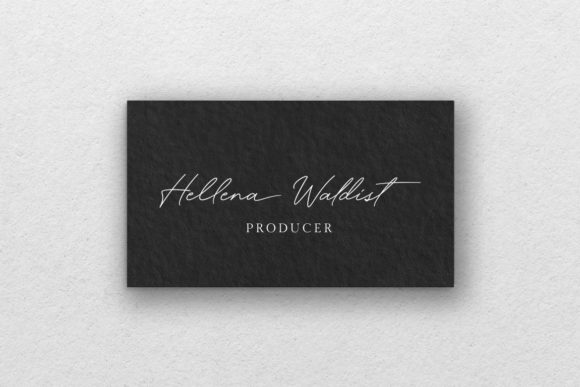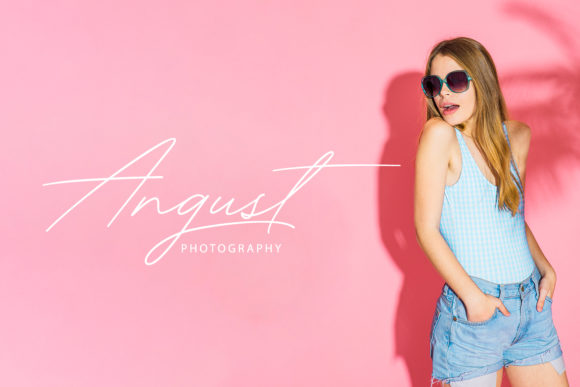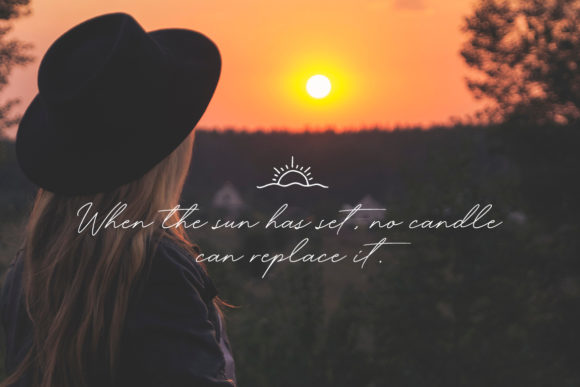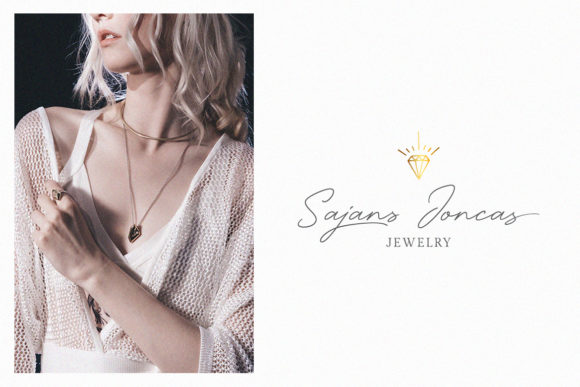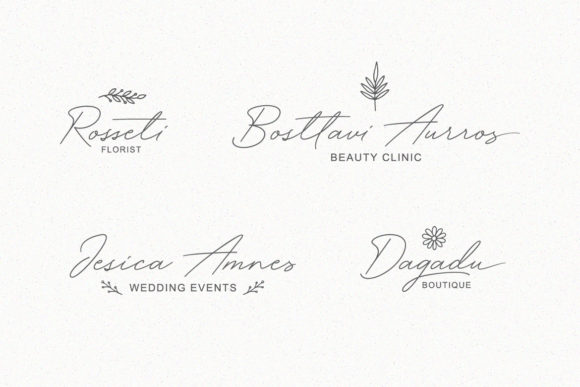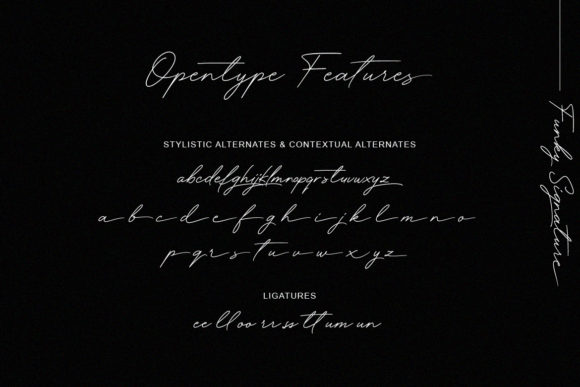
Introduction to Funky Signature Font Font
Fonts play a crucial role in design, and the Funky Signature Font font is a typeface that brings both character and versatility to any project. Whether you’re working on a branding project, a website, or a print design, the Funky Signature Font font offers a unique style that can elevate your work.
Funky Signature is a handwritten signature script with a natural flow with classic 80’s style.
Perfect for adding a unique touch to your design project .
Key Features of Funky Signature Font Font
Why Choose Funky Signature Font Font?
The Funky Signature Font font is more than just a typeface – it’s a design tool that helps you communicate your message with style and clarity. Its unique character set and versatile design make it suitable for a wide range of applications, from elegant invitations to bold headlines.
With its carefully crafted letterforms and balanced proportions, the Funky Signature Font font ensures readability and visual appeal across all mediums.
What makes Funky Signature Font font special?
The Funky Signature Font font stands out with its unique design, exceptional readability, and versatility across various design applications.